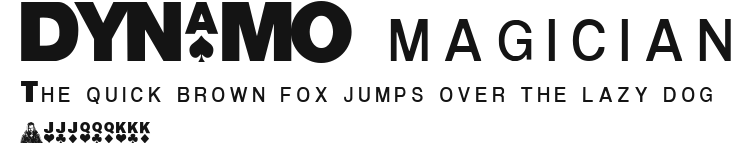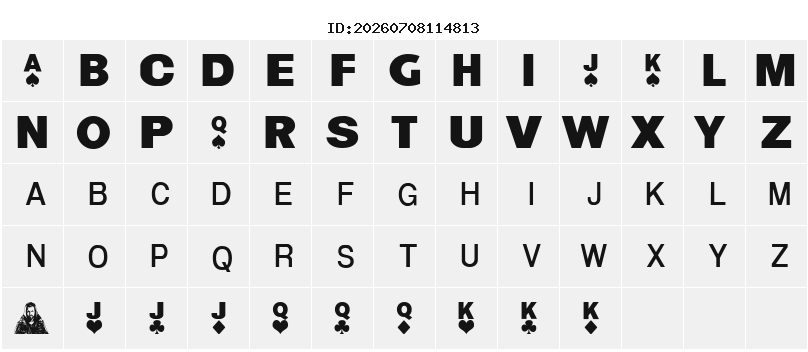
DYNAMO magician Preview
• Font Name: DYNAMO magician
• Full Font Name: DYNAMO magician
• Designer: SpideRaY
About DYNAMO magician.ttf
DYNAMO magician.ttf is a modern, elegant sans-serif font designed for ultimate readability and visual harmony. Perfect for branding, headlines, web design, and print materials.